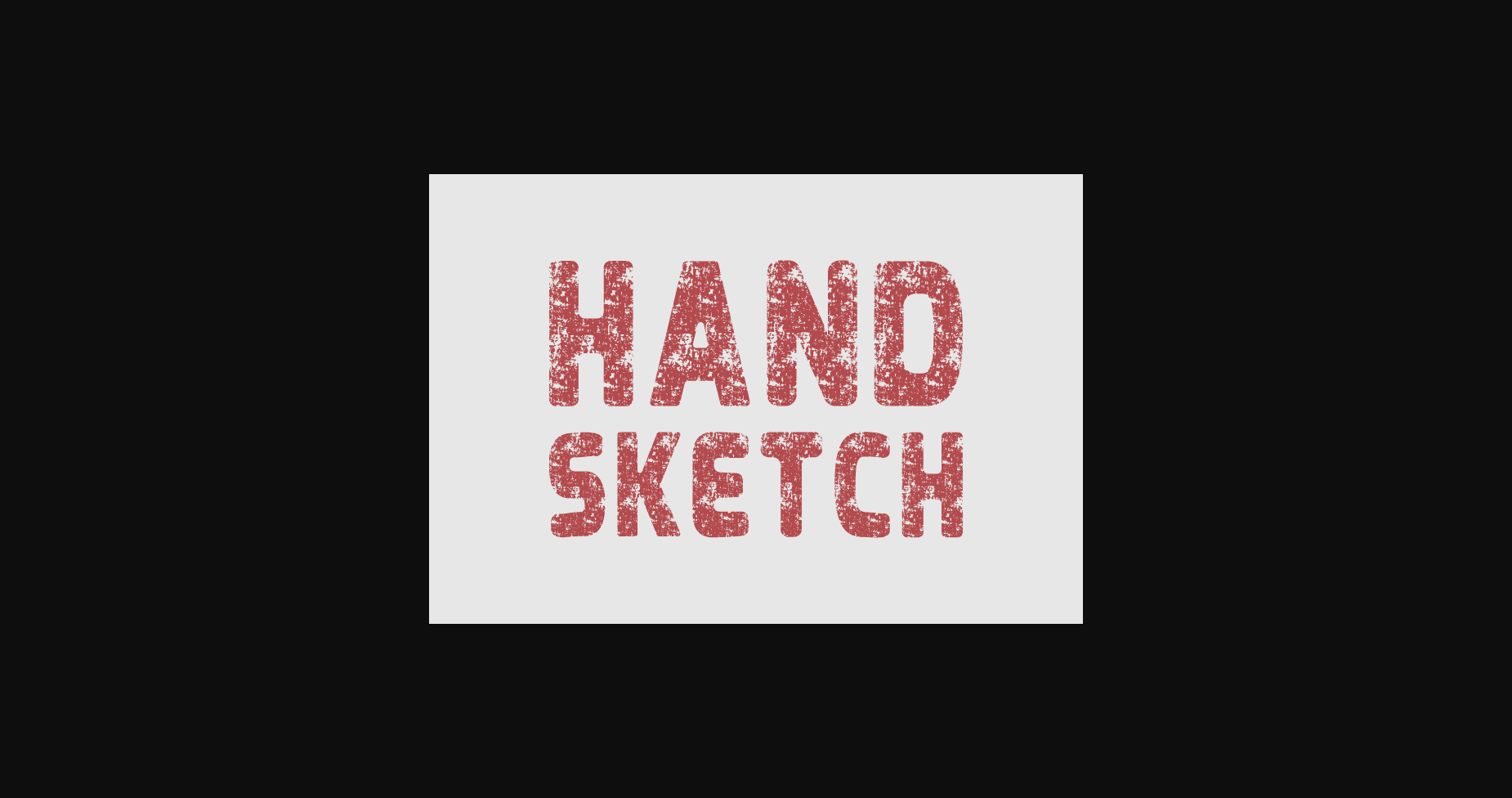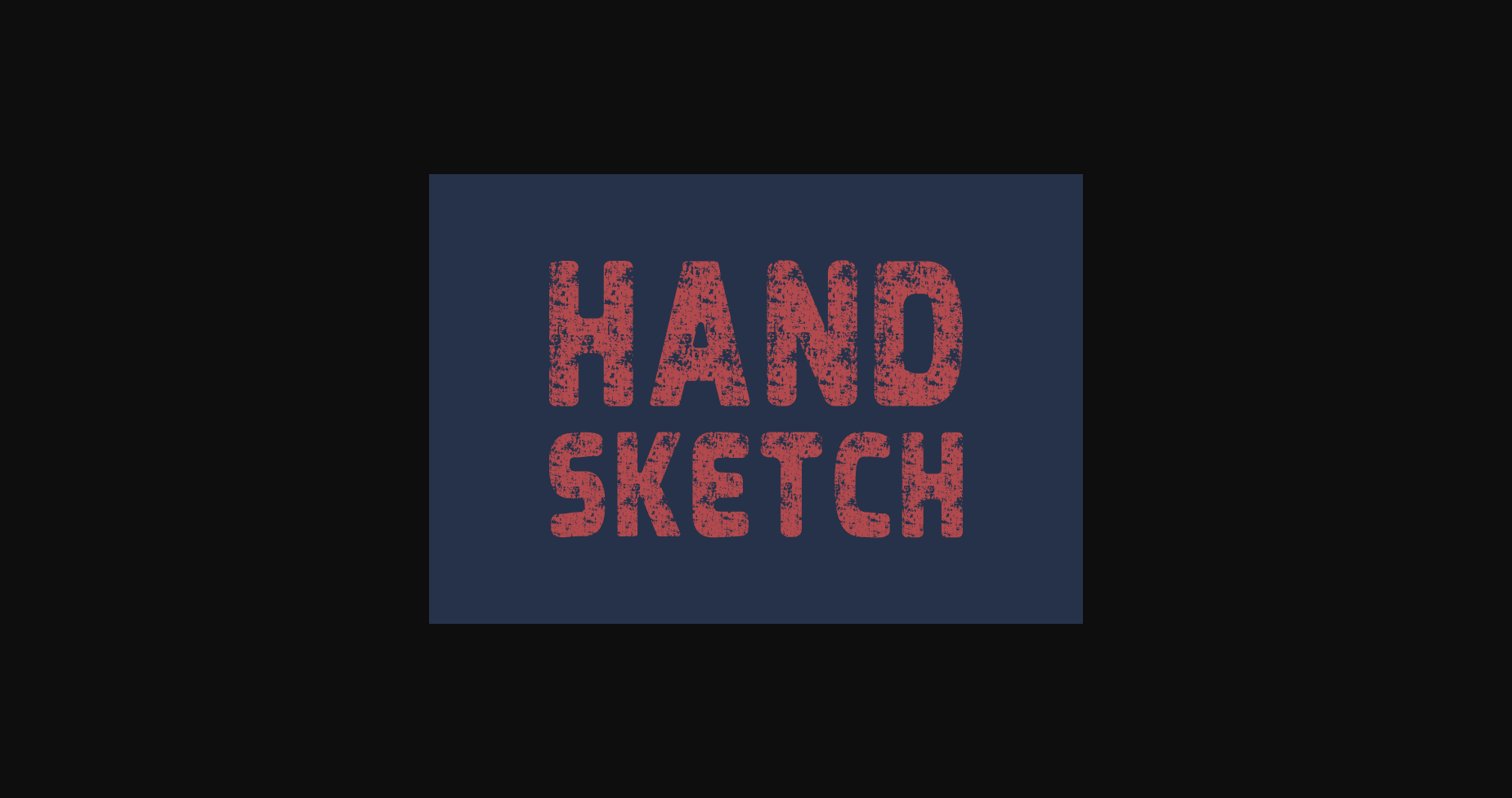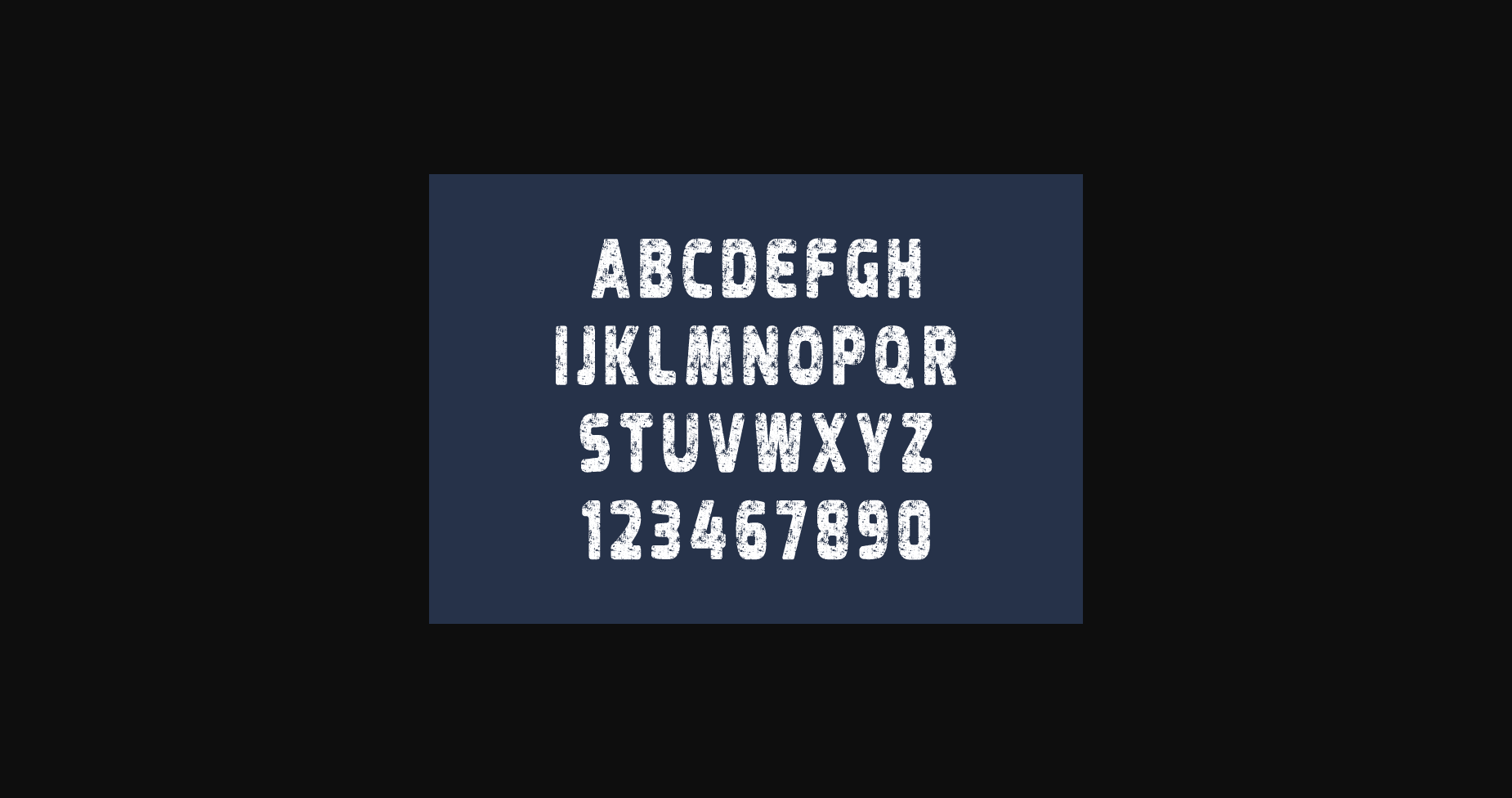
Hand Sketch Font
About Hand Sketch Font
This Hand Sketch and unique sans-serif font is a real statement-maker, with its edgy and raw design. Hand Sketch’s rough lines and distressed texture create a sense of grit and rebellion, making it perfect for anything that demands a touch of boldness and individuality, from posters and album covers to streetwear branding.